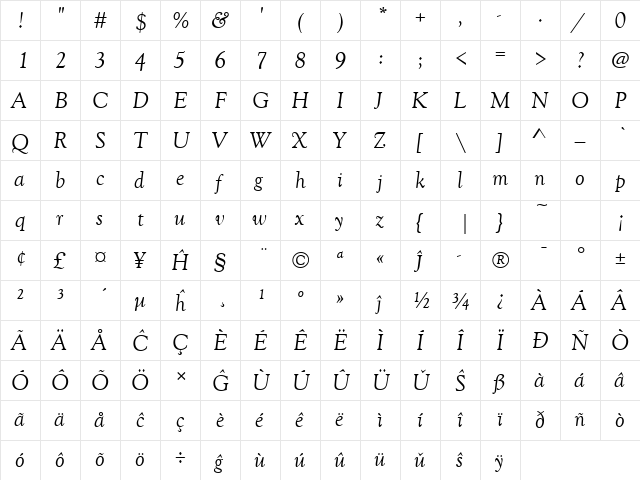
Goudy Old Style Eo Italic
Design Context for Goudy Old Style Eo Typeface
Goudy Old Style Eo is a composed and adaptable typeface that performs quietly and consistently across a wide range of design contexts. The dynamic lean of this cut emphasises speed and emphasis in any layout.
Pro Tip: Try Goudy Old Style Eo for annotation and caption copy alongside an upright companion — the contrast in angle creates a dynamic but ordered typographic system.